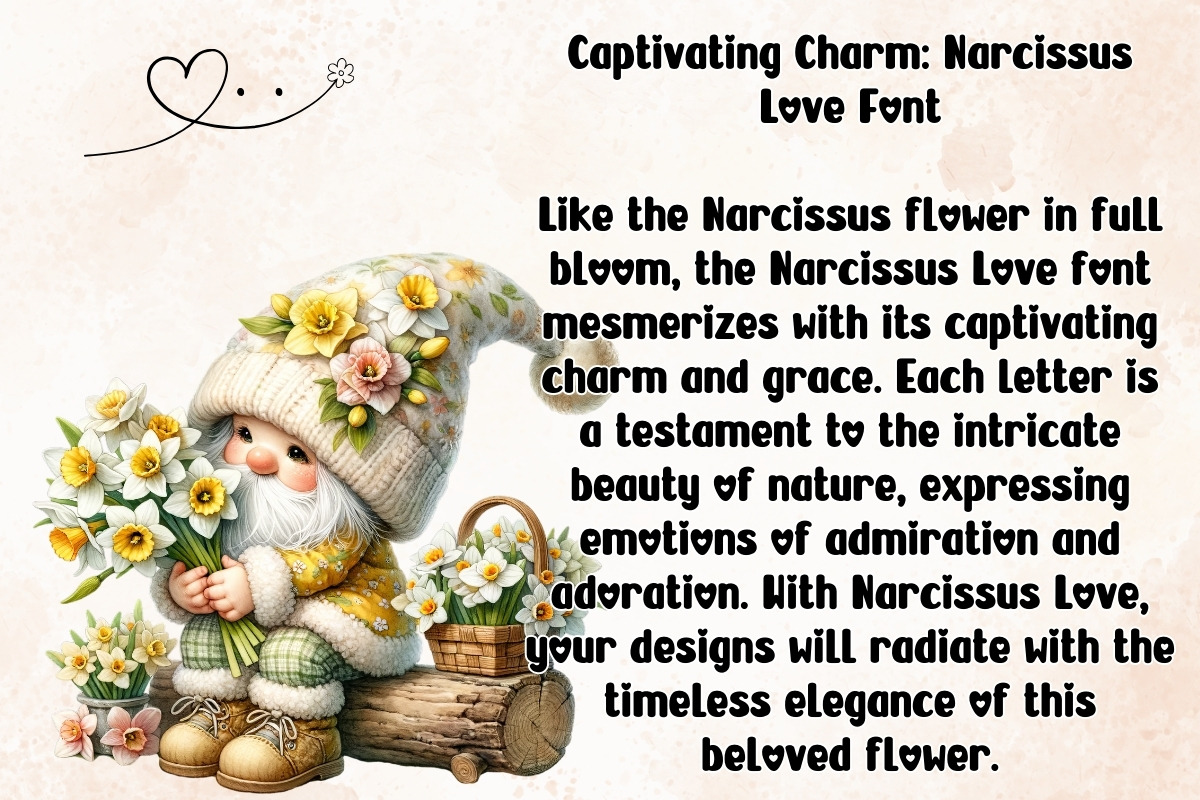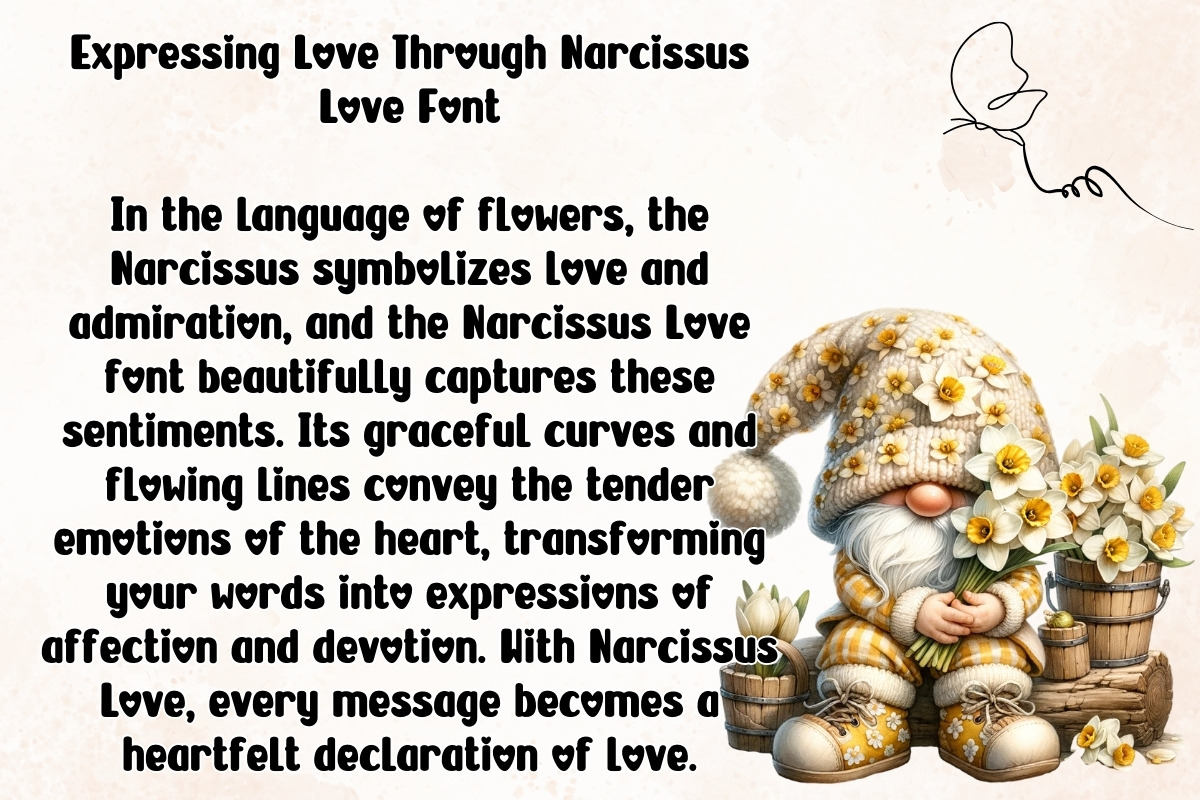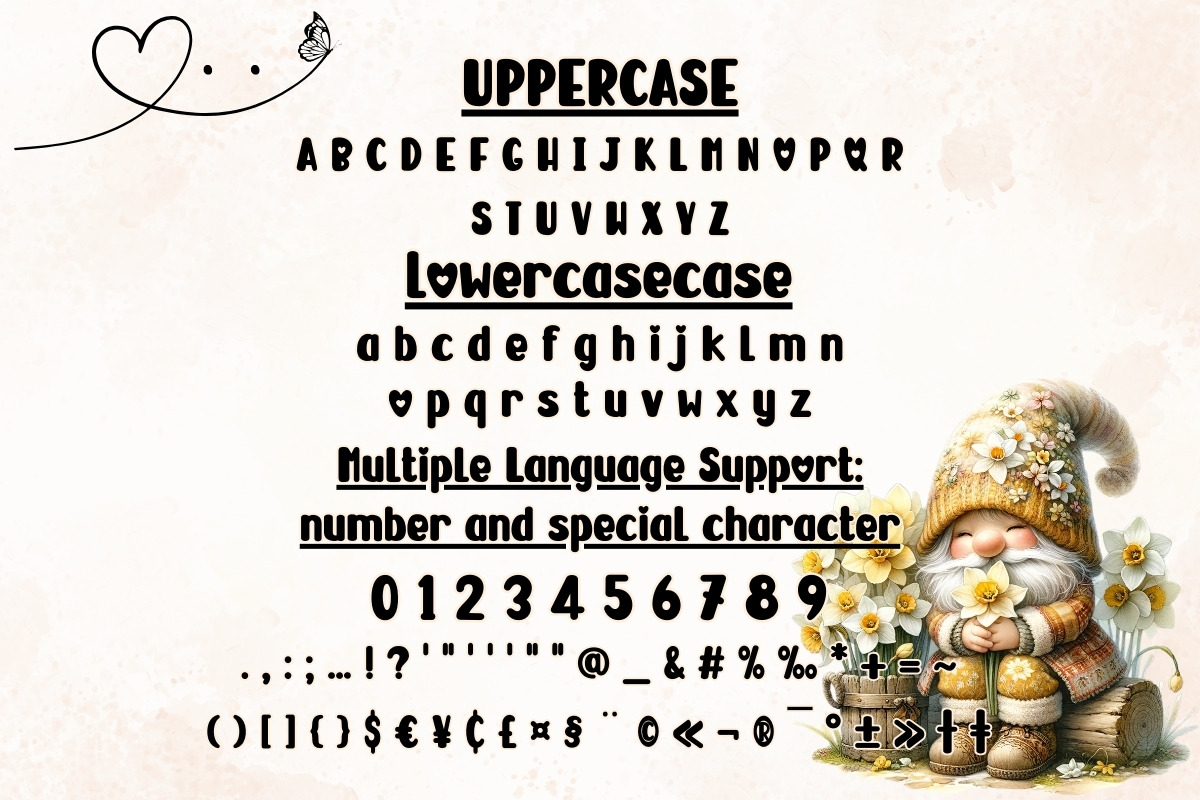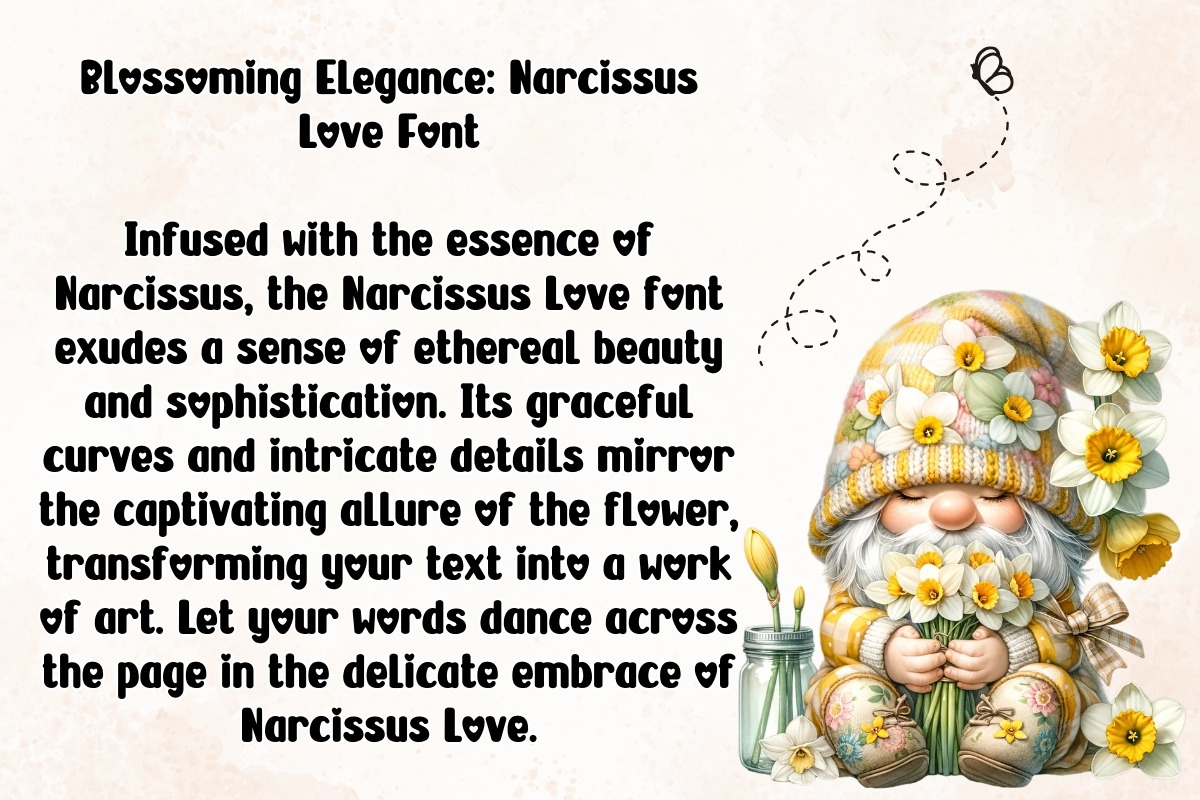
Narcissus Love - Handwritting
Narcissus Beauty: A Font of Emotions
Drawing inspiration from the exquisite beauty of the Narcissus flower, the Narcissus Love font captures the essence of elegance and grace. Each stroke of this font reflects the delicate petals of the flower, evoking feelings of admiration and enchantment. With Narcissus Love, your words bloom with the timeless allure of nature's own masterpiece.